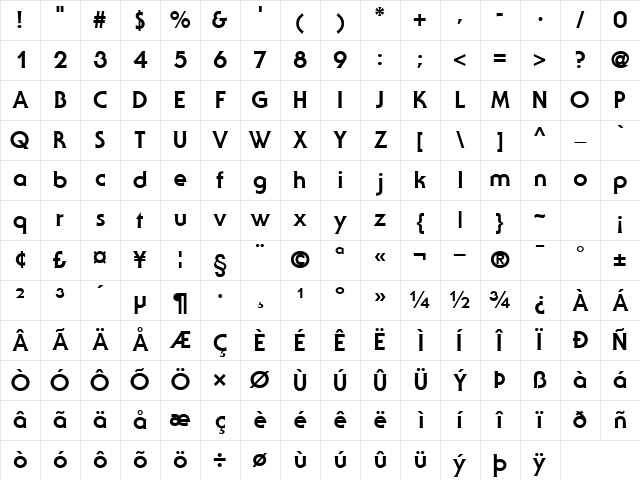
UbiqGothicBlackSSK Regular
Design Context for UbiqGothicBlackSSK
UbiqGothicBlackSSK takes a clean, functional approach - its unadorned letterforms prioritise legibility and work reliably across screen and print environments.
Font Pairing: Works well alongside a characterful serif or display font that can carry the expressive load while UbiqGothicBlackSSK handles the functional copy.
Pro Tip: Use UbiqGothicBlackSSK for UI labels, navigation, and short-form body copy where clean legibility is the priority.